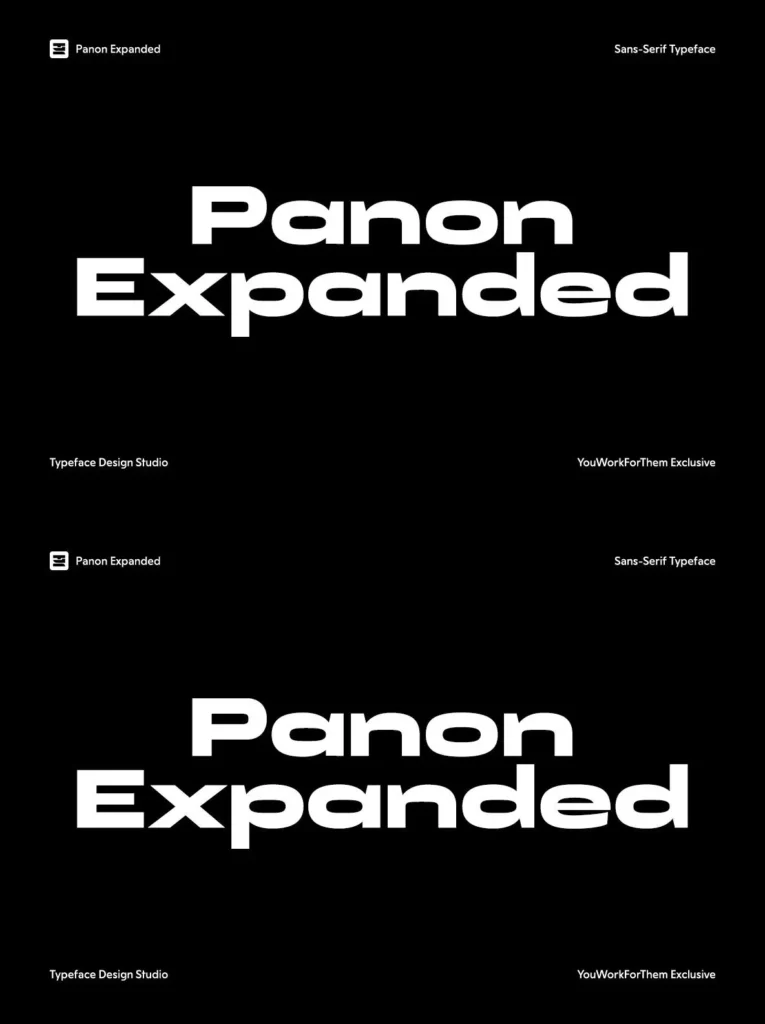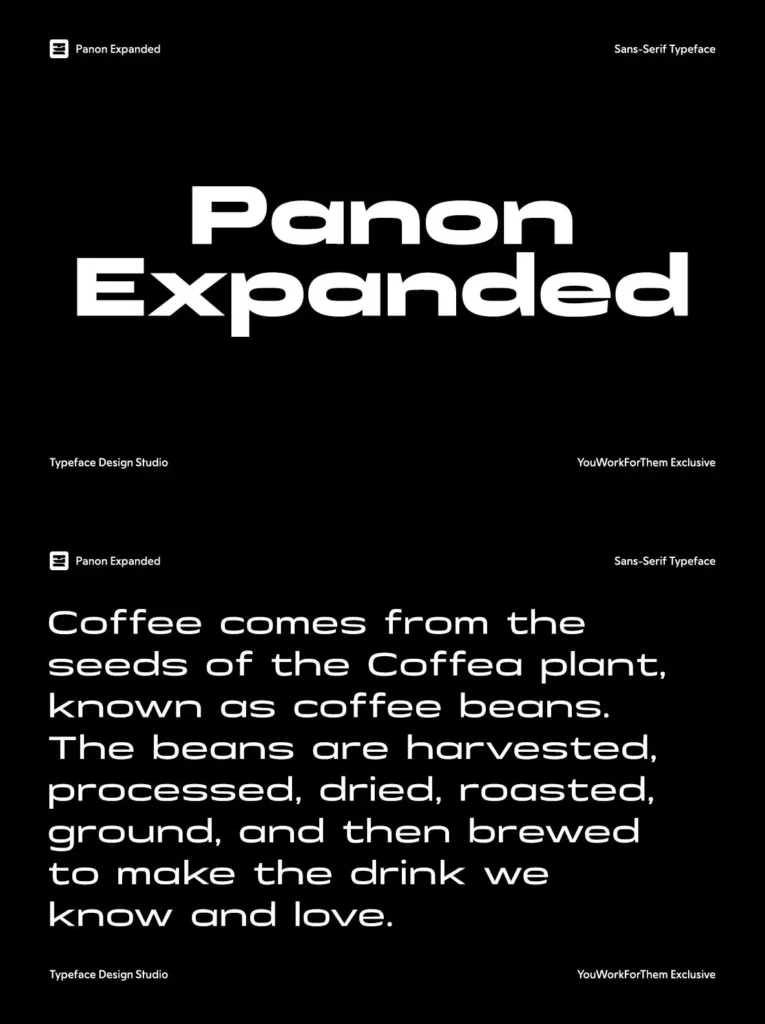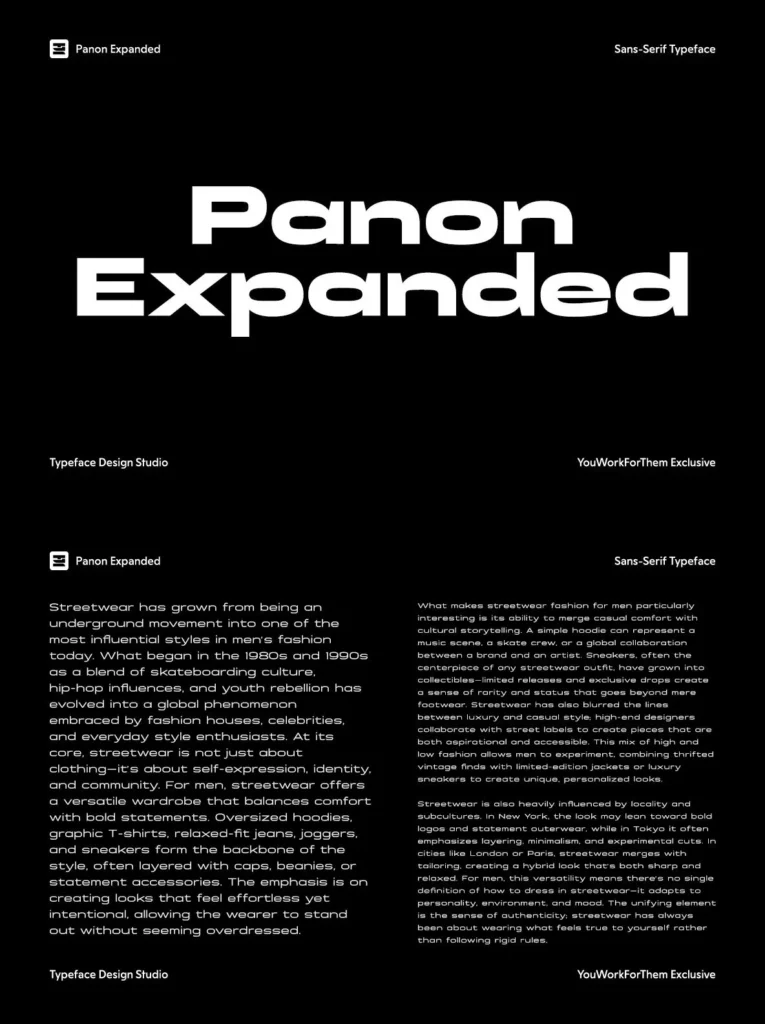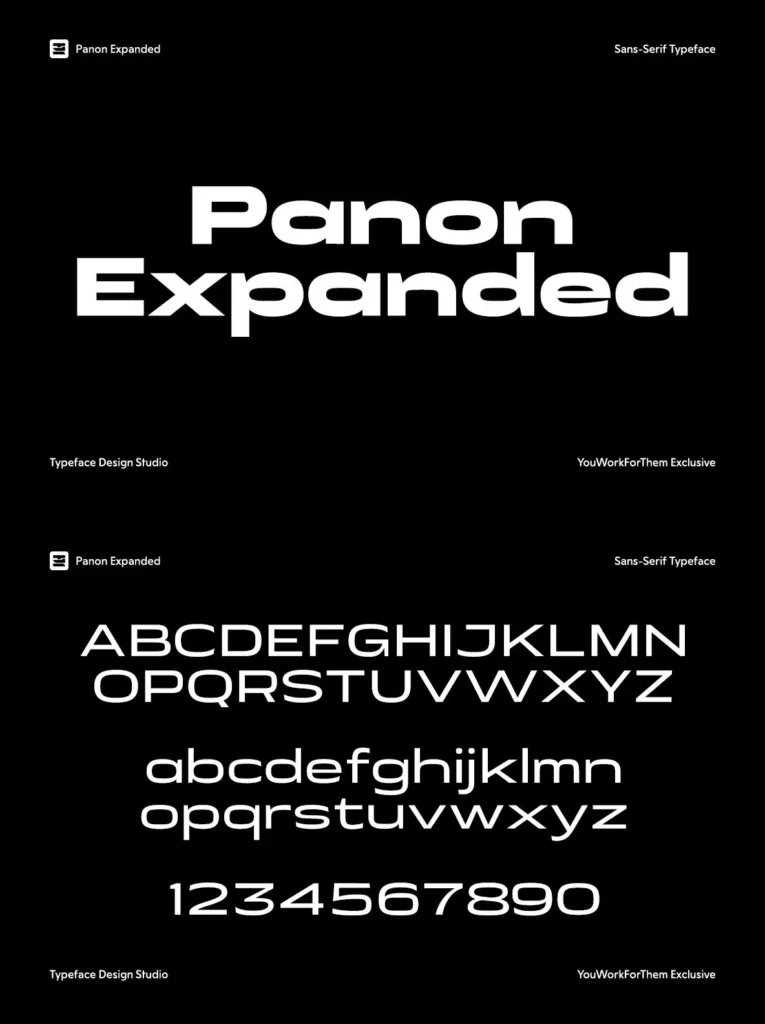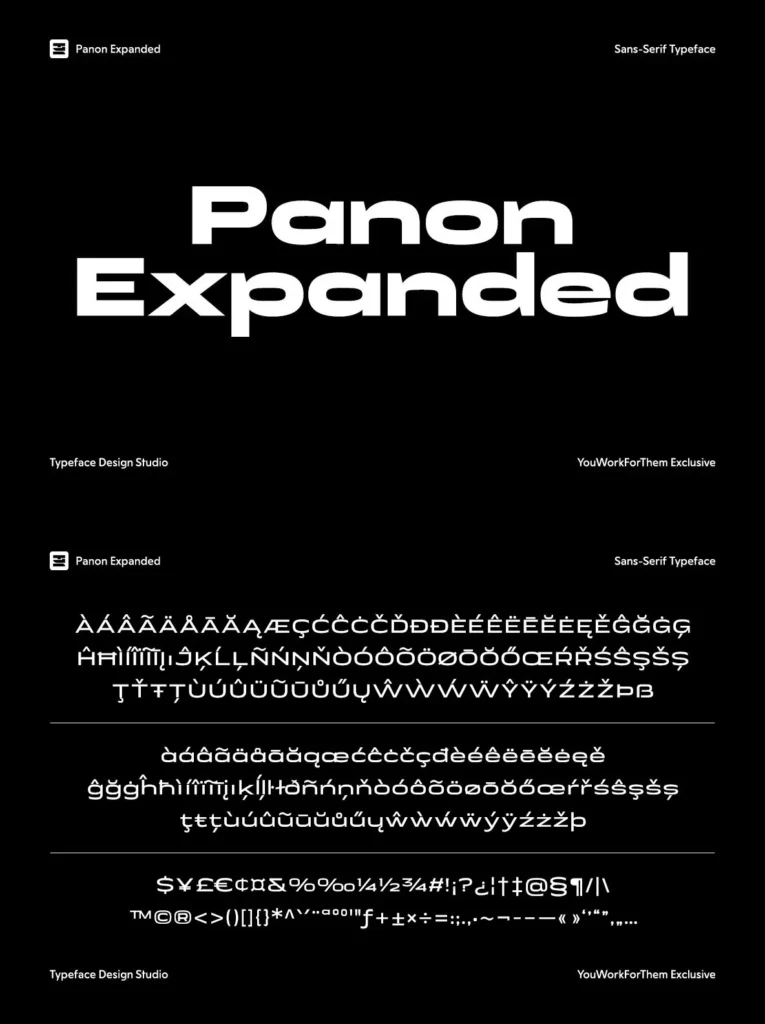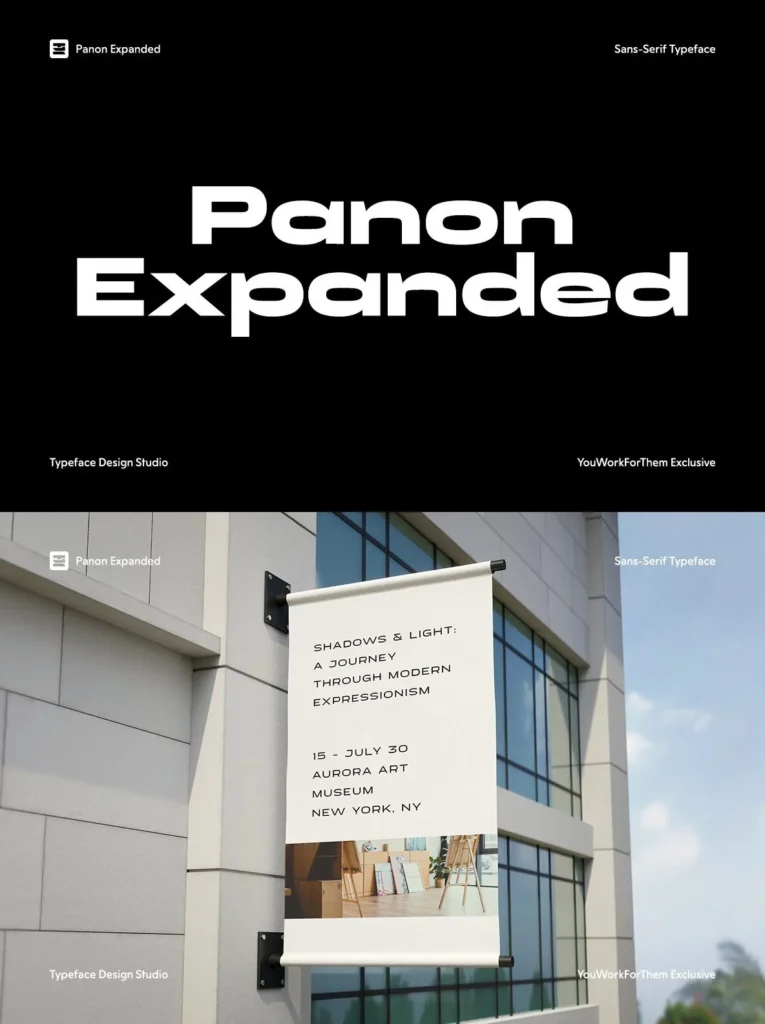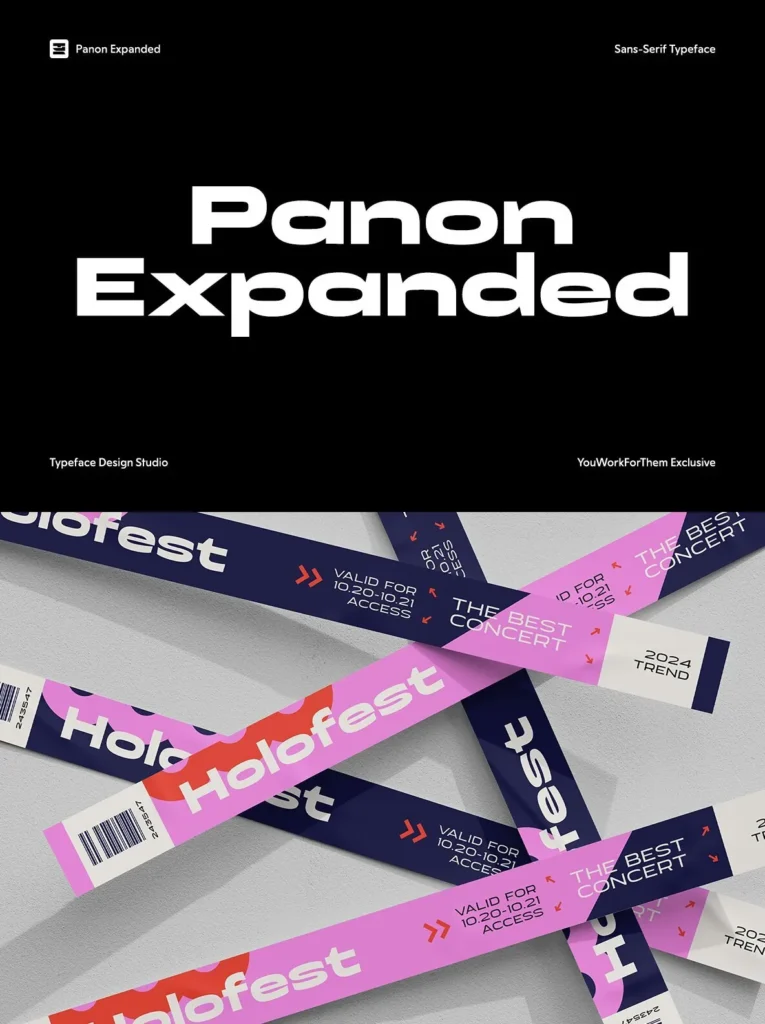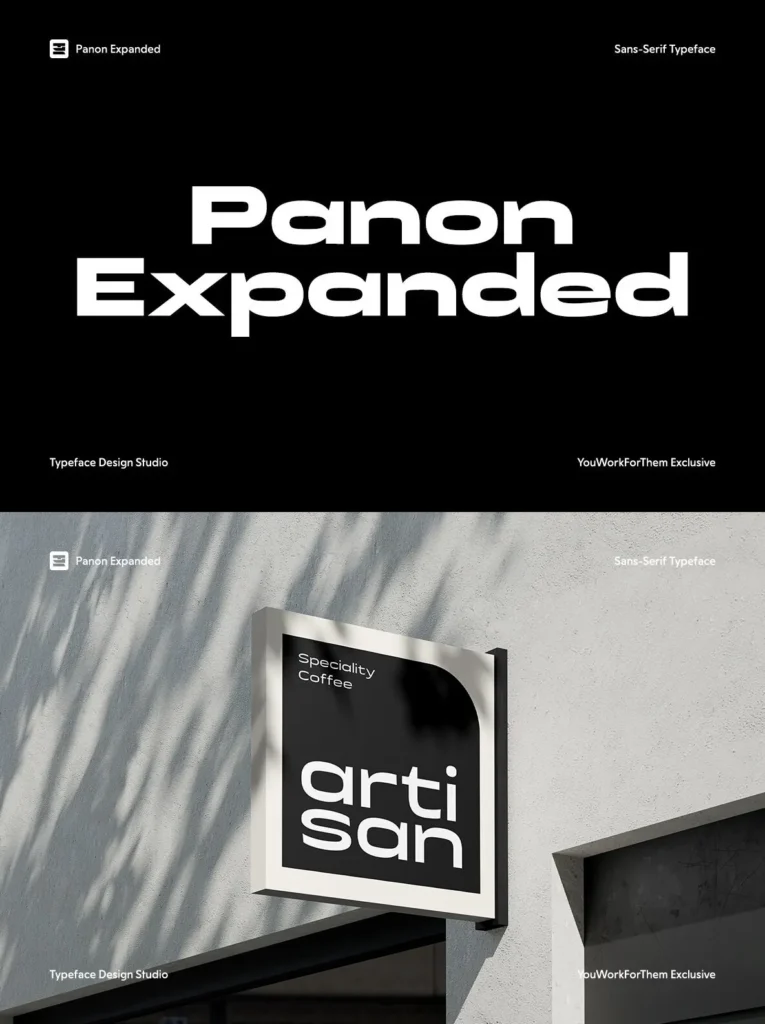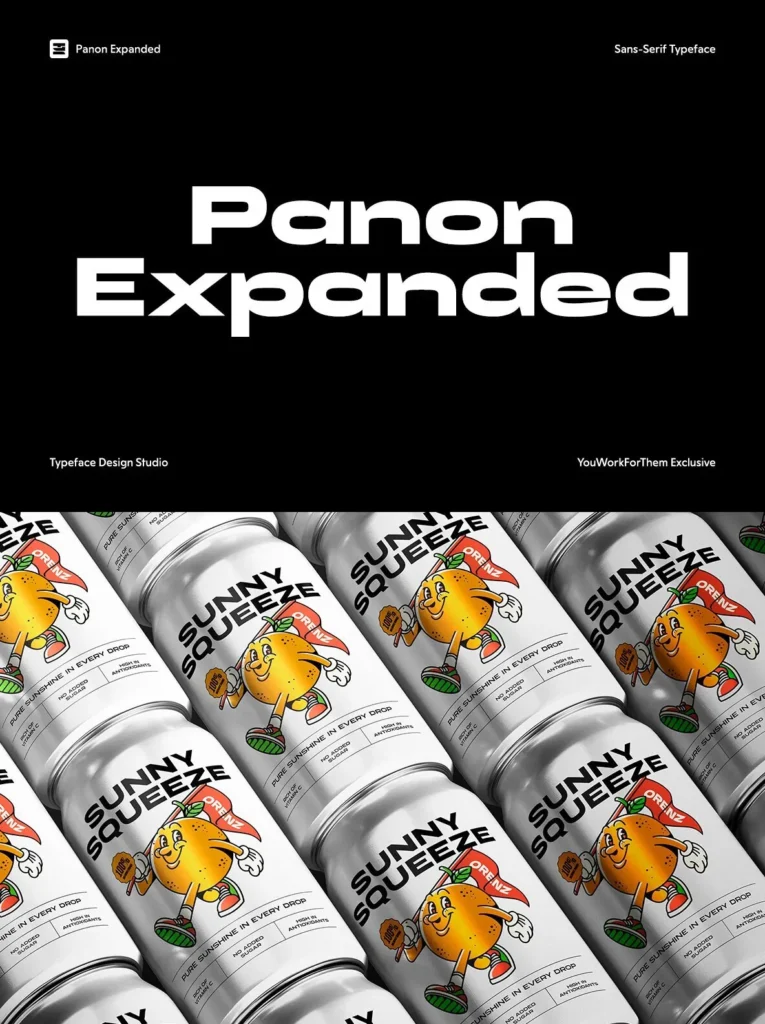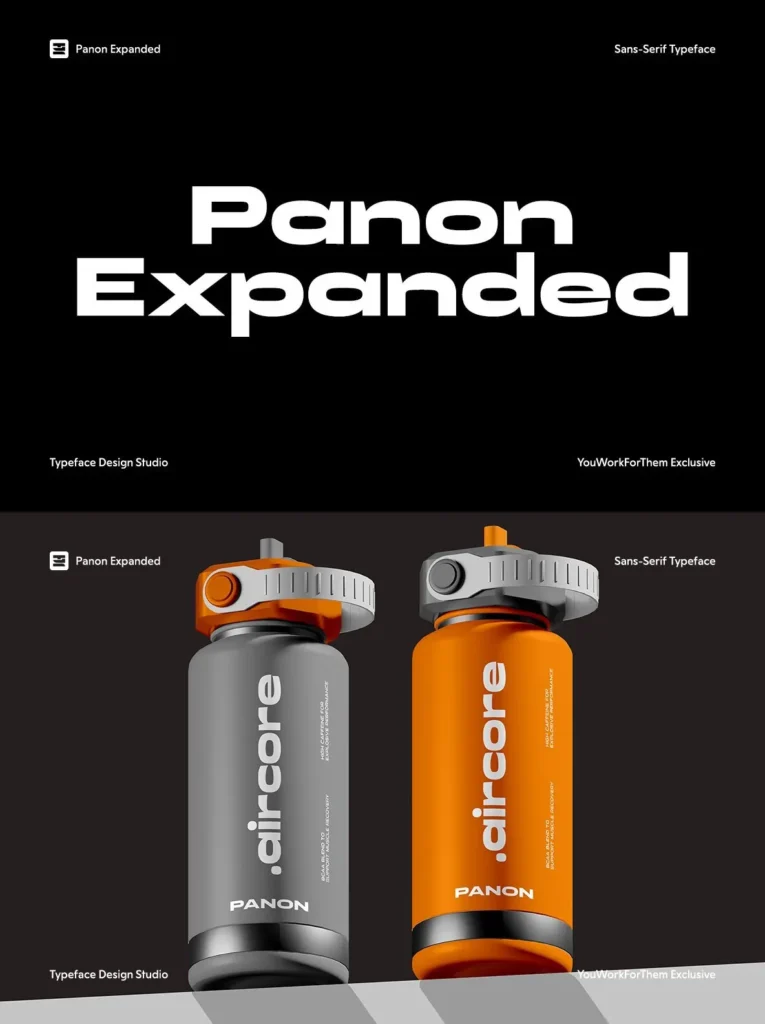
Panon Expanded: Bold Sans Serif With Playful Edge
Panon Expanded is a wide sans serif font designed to make a statement with its blend of bold power and playful character. Ideal for logos, posters, sports, and branding, the font delivers impact with clarity. Featuring five weights and a variable option, this typeface adapts seamlessly to modern headlines and stylish covers. Inspired by the striking typography of bold posters, it infuses confidence and character into any project.
This geometric sans-serif font features thin, clean lines with a modern aesthetic, perfect for digital and print applications. Its balance and open letterforms make it ideal for corporate branding, minimalist logos, and international-style editorial design. Use it for projects that require an elegant yet approachable typeface, emphasizing contemporary and cosmopolitan appeal.
Five font weights and one variable option.
360 glyphs included per style.
OpenType Features: Alternates, Case Sensitive Forms, Fractions, Localized Forms, Ordinals, Standard Ligatures, Superscripts.
Geometric and unique alternative to the older and print-era typeface Eurostile.